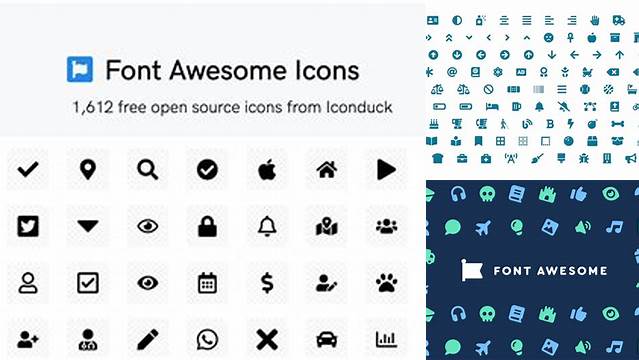
Font Awesome Free 6.5.2: The Ultimate Guide
Hey guys! Ever felt like your website or app needs that extra oomph? Chances are, you've heard about Font Awesome. It's like the superhero of icons, swooping in to save the day with its massive library of scalable vector icons. And today, we're diving deep into Font Awesome Free 6.5.2. We'll cover everything from what it is, to how to use it, and why it’s a total game-changer. So buckle up, and let’s get started!
What is Font Awesome Free 6.5.2?
So, what exactly is Font Awesome Free 6.5.2? In simple terms, it's a collection of icons that you can use in your web projects. Think of it as a massive library filled with symbols, logos, and pictograms. But here’s the kicker: these aren’t just any ordinary images. They’re vector icons, which means they can be scaled up or down without losing quality. This is super important because it ensures your icons look crisp and clear on any device, whether it’s a tiny smartphone or a massive desktop monitor. The 'Free' part means you can use a wide selection of these icons without paying a dime, making it a fantastic resource for developers and designers on a budget. Font Awesome helps make your site look professional.
Font Awesome Free 6.5.2 is a substantial update over previous versions, introducing new icons, improved accessibility features, and better performance. The core idea remains the same: to provide a comprehensive icon set that’s easy to use and customize. With version 6.5.2, the Font Awesome team has continued to refine the user experience, making it even simpler to integrate these icons into your projects. Whether you're building a simple blog or a complex web application, Font Awesome has something to offer. You just insert the line of code that correlates with the icon you want and poof there it is!
What sets Font Awesome apart is its versatility. You can use it with HTML, CSS, JavaScript, and various web frameworks. This flexibility makes it an indispensable tool for front-end developers. Plus, the icons are styled using CSS, so you can easily change their size, color, and even add effects like shadows or animations. This level of customization means you can create a truly unique look for your website or application. Basically, Font Awesome Free 6.5.2 gives you the power to make your projects look polished and professional without needing to be a design guru. So, if you're looking for a way to enhance your web projects, Font Awesome is definitely worth checking out!
Why Use Font Awesome Free?
Okay, so you know what Font Awesome Free 6.5.2 is, but why should you actually use it? Well, let me break it down for you. First off, it’s free! Who doesn’t love free stuff, right? But beyond the zero cost, there are tons of other compelling reasons to integrate Font Awesome into your projects. One of the biggest advantages is its scalability. As vector icons, they look sharp at any size, which is crucial in today's world of diverse screen resolutions. Say goodbye to pixelated, blurry icons! This ensures a consistently professional look across all devices, from smartphones to high-resolution monitors.
Another major benefit is the ease of use. Font Awesome provides simple CSS classes that you can use to insert icons directly into your HTML. No need to mess around with image files or complicated code. Just add the appropriate class to an element, and the icon appears. It’s that simple! Plus, because the icons are styled with CSS, you can easily customize their appearance. Change the color, size, or add effects with just a few lines of CSS code. This level of customization allows you to create a unique and branded look for your website or application. Imagine changing the color of all your icons to match your brand's color scheme with just a few tweaks.
Font Awesome also improves your website’s performance. Instead of loading multiple image files for each icon, Font Awesome uses a single font file. This reduces the number of HTTP requests and can significantly speed up your page load times. Faster loading times mean a better user experience, which can lead to increased engagement and conversions. Additionally, Font Awesome is constantly updated with new icons and features. Version 6.5.2 includes a wide range of new icons, catering to various industries and use cases. Whether you need icons for social media, e-commerce, or general UI elements, Font Awesome has you covered. By using Font Awesome Free 6.5.2, you're not just saving money; you're also improving the look, performance, and maintainability of your web projects. It’s a win-win situation!
Installing Font Awesome Free 6.5.2
Alright, you're convinced that Font Awesome Free 6.5.2 is the bee's knees, but how do you actually get it onto your website? Don't worry, the installation process is super straightforward. There are a few ways to do it, each with its own pros and cons. The simplest method is to use a Content Delivery Network (CDN). This involves adding a link to Font Awesome’s CSS file in your HTML. A CDN hosts the Font Awesome files on a network of servers, so your website can load them quickly and efficiently. To use the CDN, just add the following line to the <head> section of your HTML:
This line tells your browser to load the Font Awesome CSS file from the CDN. Once you’ve added this, you can start using Font Awesome icons in your HTML. Another option is to download the Font Awesome files and host them on your own server. This gives you more control over the files and can be useful if you need to customize them. To do this, go to the Font Awesome website and download the Free version. Once you’ve downloaded the zip file, extract it to a directory on your server. Then, link to the CSS file in your HTML, like this:
Make sure to replace /path/to/your/font-awesome/ with the actual path to the Font Awesome files on your server. Finally, you can also install Font Awesome using a package manager like npm or yarn. This is a great option if you're using a modern JavaScript framework like React or Angular. To install with npm, run the following command in your project directory: